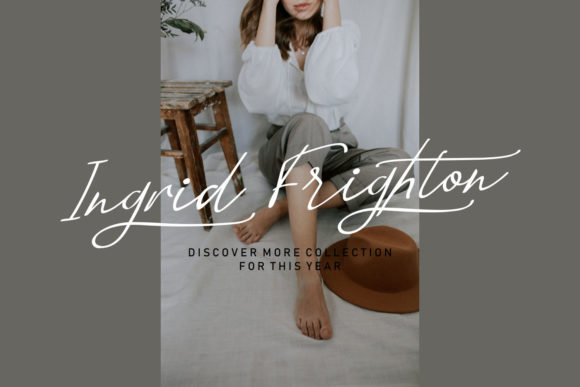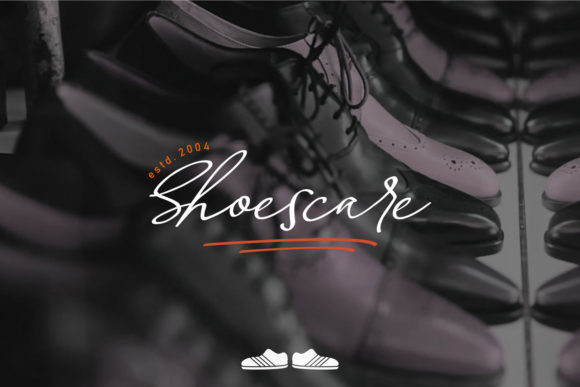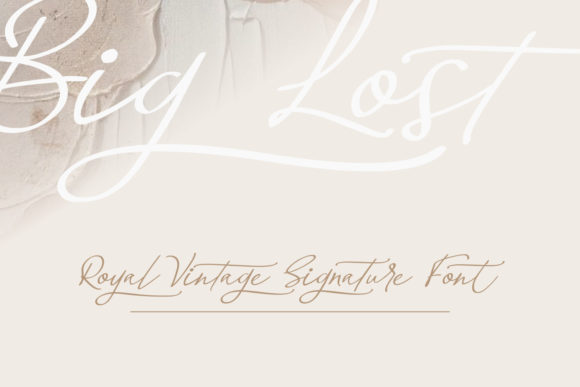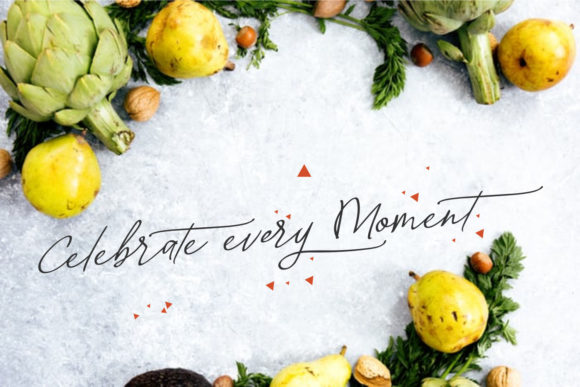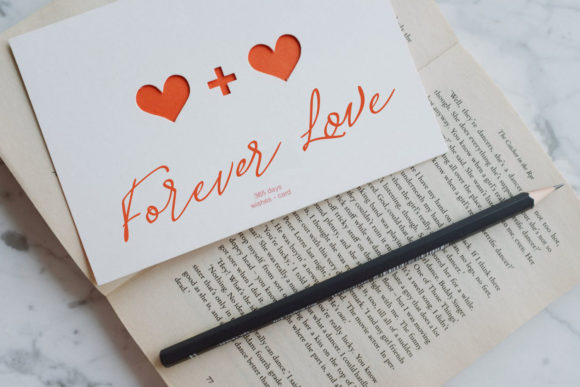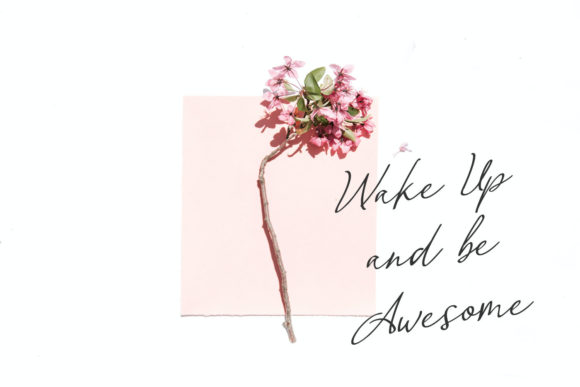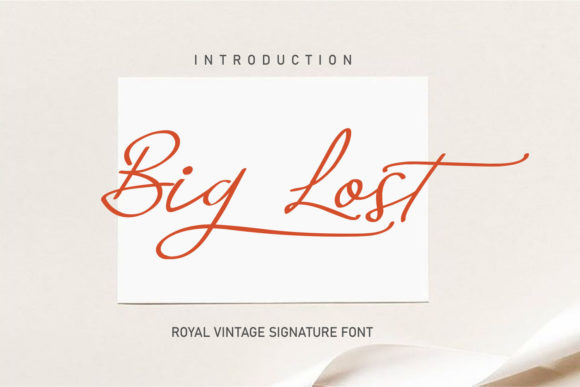
Discover the Charm of Big Lost Font: A Sweet and Authentic Hand-Lettered Font
Are you a designer or crafter looking for a font that exudes warmth, elegance, and a touch of whimsy? Look no further than Big Lost Font, a beautiful, soft hand-lettered handwritten font that’s sure to capture your heart. In this article, we’ll dive into the world of Big Lost Font, exploring its unique features, uses, and benefits, and why it’s the perfect addition to your font collection.
What is Big Lost Font?
Big Lost Font is a sweet, soft hand-lettered handwritten font that’s designed to bring a touch of authenticity to your designs. Its gentle, cursive lines and rounded edges give it a warm and inviting feel, making it perfect for a wide range of creative projects. Whether you’re creating wedding invitations, stationery art, social media posts, or greeting cards, Big Lost Font is sure to add a touch of elegance and sophistication.
Unique Features of Big Lost Font
So, what sets Big Lost Font apart from other fonts? Here are just a few of its unique features:
- Hand-lettered authenticity: Big Lost Font is carefully crafted to mimic the look and feel of hand-lettered text, giving it a unique and authentic feel.
- Soft and gentle lines: The font’s soft, cursive lines and rounded edges give it a warm and inviting feel.
- Highly legible: Despite its elegant feel, Big Lost Font is highly legible, making it perfect for use in a wide range of creative projects.
- Versatile: Big Lost Font is suitable for use in a wide range of creative projects, from wedding invitations to social media posts.
Uses for Big Lost Font
Big Lost Font is a versatile font that can be used in a wide range of creative projects, including:
- Wedding invitations: Add a touch of elegance and sophistication to your wedding invitations with Big Lost Font.
- Stationery art: Create beautiful stationery art, including notecards, journals, and planners, with Big Lost Font.
- Social media posts: Use Big Lost Font to create eye-catching social media posts that stand out from the crowd.
- Greeting cards: Create cute and charming greeting cards for special occasions with Big Lost Font.
Benefits of Using Big Lost Font
So, why should you choose Big Lost Font for your creative projects? Here are just a few benefits:
- Adds a touch of elegance: Big Lost Font adds a touch of elegance and sophistication to any creative project.
- Creates a personal touch: The font’s hand-lettered feel creates a personal touch that’s sure to resonate with your audience.
- Highly versatile: Big Lost Font can be used in a wide range of creative projects, making it a valuable addition to your font collection.
Tips for Using Big Lost Font
Here are a few tips for getting the most out of Big Lost Font:
- Use it with contrasting colors: Big Lost Font looks beautiful when paired with contrasting colors, which can help to make your text stand out.
- Experiment with different sizes: Big Lost Font can be used at a variety of sizes, from large headings to smaller body text.
- Pair it with other fonts: Big Lost Font can be paired with other fonts to create a unique and eye-catching look.
In conclusion, Big Lost Font is a beautiful, soft hand-lettered handwritten font that’s perfect for designers and crafters looking to add a touch of elegance and sophistication to their creative projects. With its unique features, versatility, and ease of use, Big Lost Font is sure to become a valuable addition to your font collection. So why not give it a try and see the difference it can make?